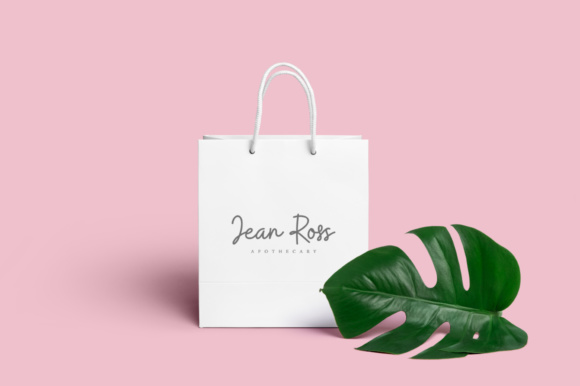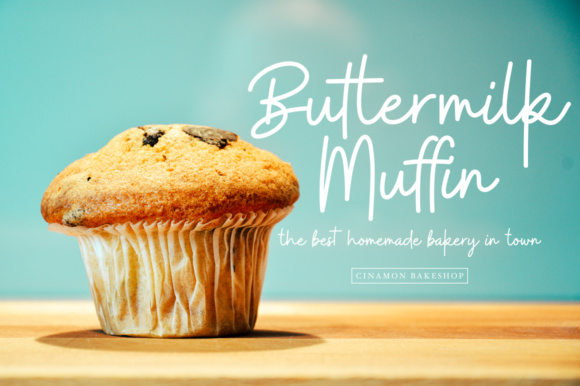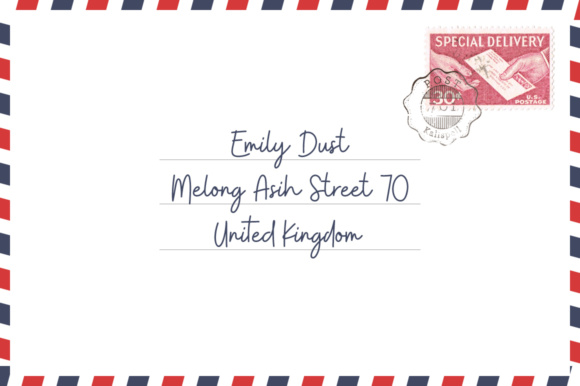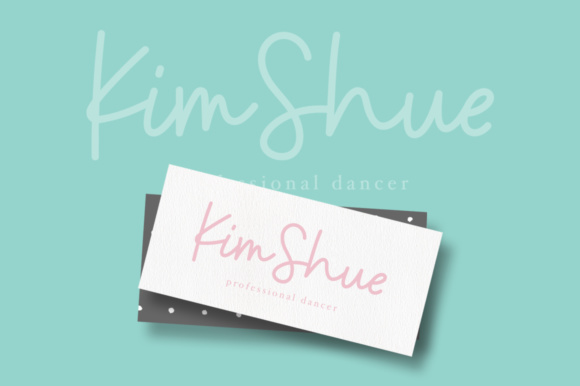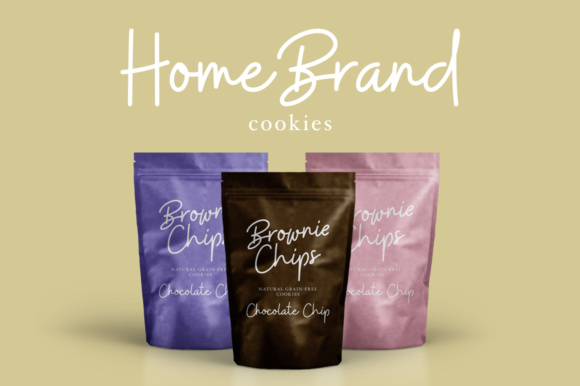
Buffalo Font
About Buffalo Font
Buffalo is a beautiful handwritten font. With it’s elegant and striking letters, Buffalo is perfect for greeting cards, magazines, branding, social media, print, packaging, and much more.